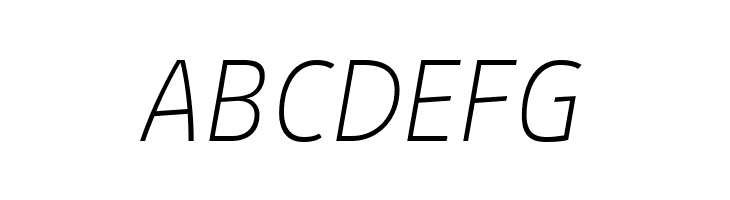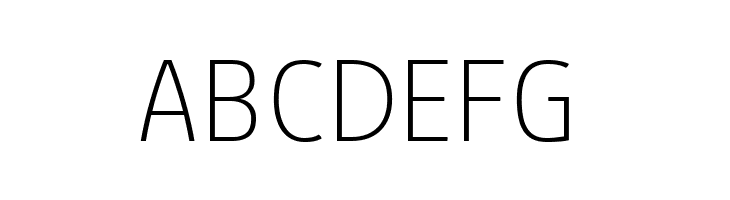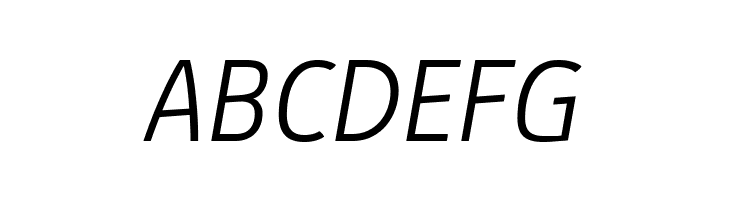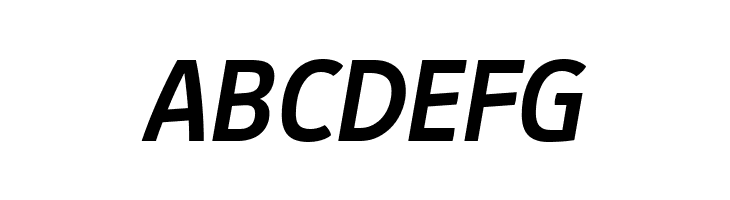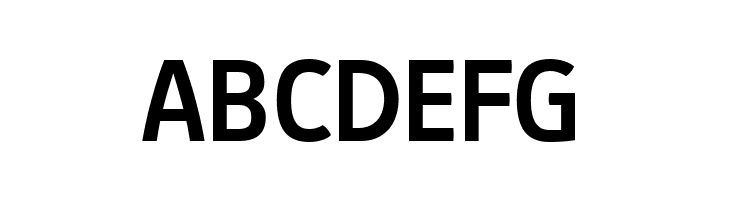
A sleek, modern, light italic font with medium contrast and a streamlined appearance.
A modern, light sans-serif font with a clean and minimalistic design.
A modern, italic sans-serif font with a sleek and dynamic style.
A modern, medium-weight sans-serif font with a clean and versatile design.
A sleek, modern font with thin, italicized letterforms and a minimalist design.
A sleek, modern font with thin strokes and a minimalist design.